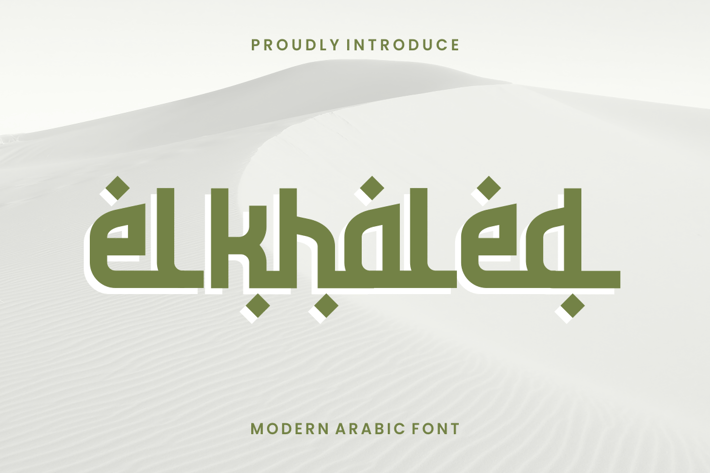
Elkhaled - Modern Arabic Font
Presenting Elkhaled - Font is suitable for badge, labels, logo, branding, magazine, poster and etc. Our fonts have Uppercase & Lowercase, Numeral & Punctuation, Multilingual support and Opentype Features. For Amazing designs you can mix with other fonts as a complement.